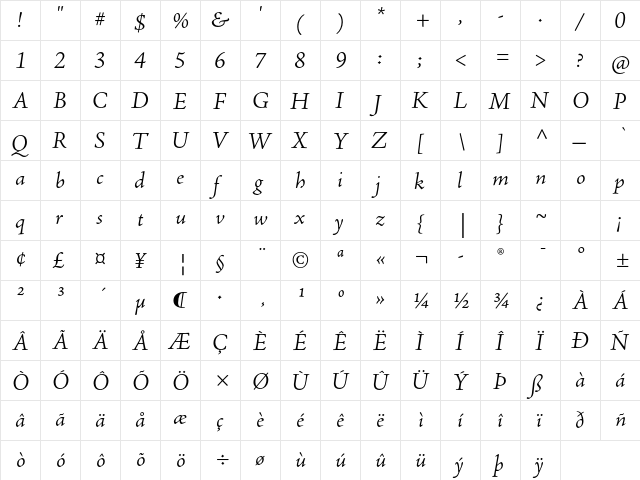
Adobe Jenson Pro Light Italic Font Preview
| Style | Light Italic |
| Designer | Robert Slimbach |
Design Context for Adobe Jenson Pro Typeface
Adobe Jenson Pro takes a measured approach to typography — its balanced proportions and neutral character make it a reliable workhorse for both digital and print work. The dynamic lean of this cut emphasises speed and emphasis in any layout. Its slender proportions lend an understated elegance to any composition.
Pro Tip: Try Adobe Jenson Pro for annotation and caption copy alongside an upright companion — the contrast in angle creates a dynamic but ordered typographic system.